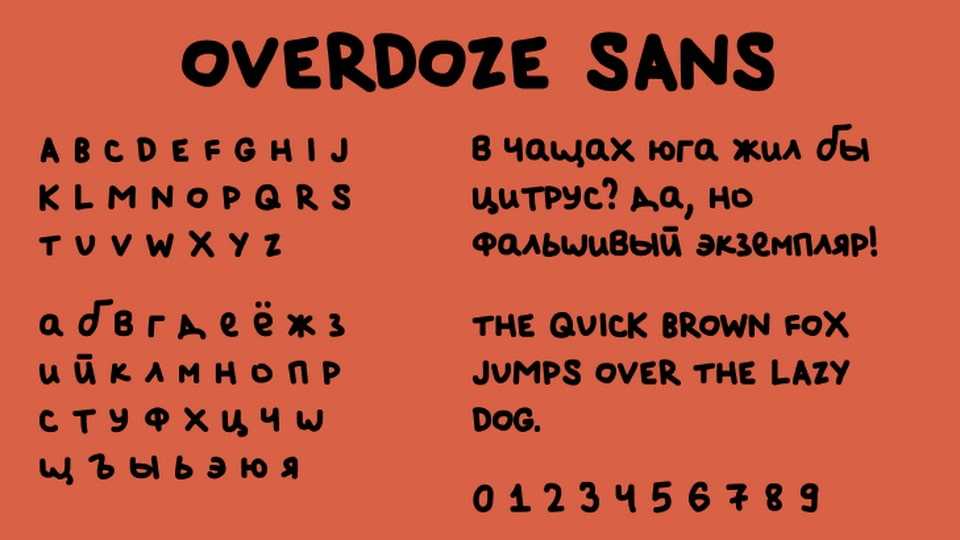
Download Overdose Sans font, a charming and effortless hand-drawn typeface that radiates simplicity, casual charm, and organic warmth. Each letter in Overdose Sans is a stroke of playful spontaneity, as if sketched by hand with carefree joy.
Designer: IsamiRi